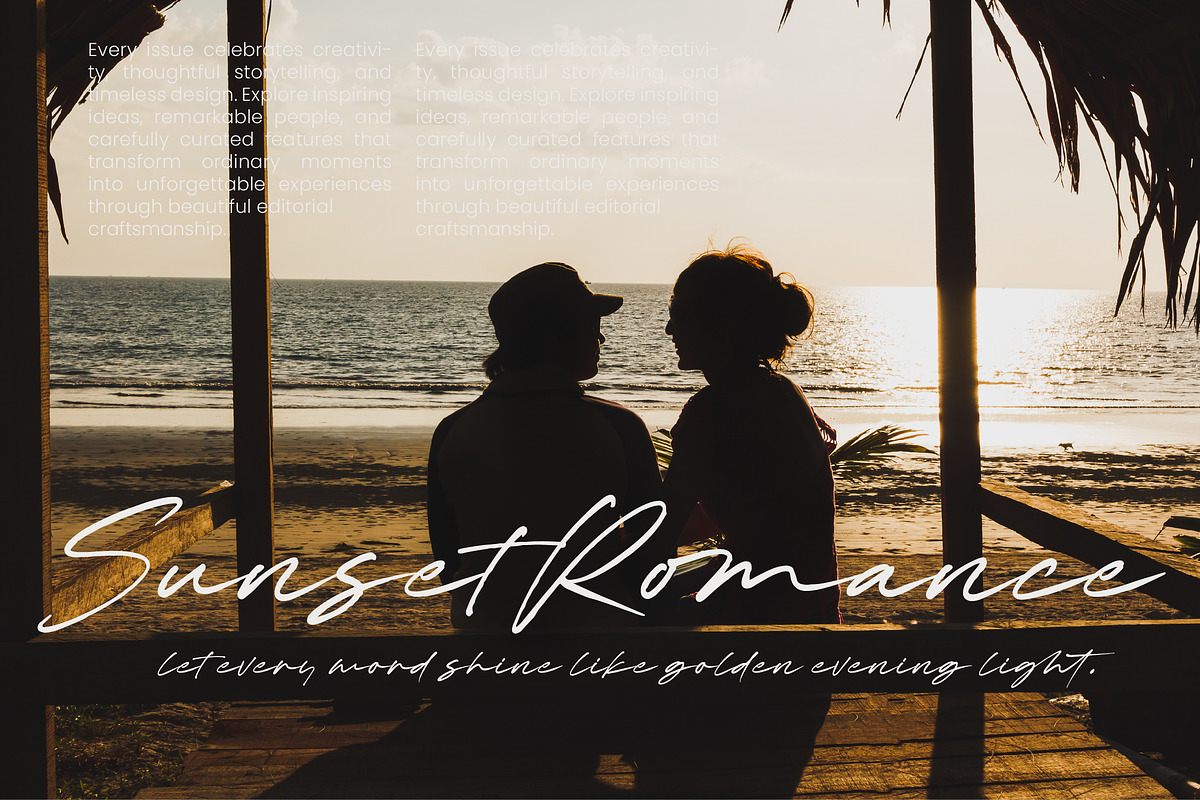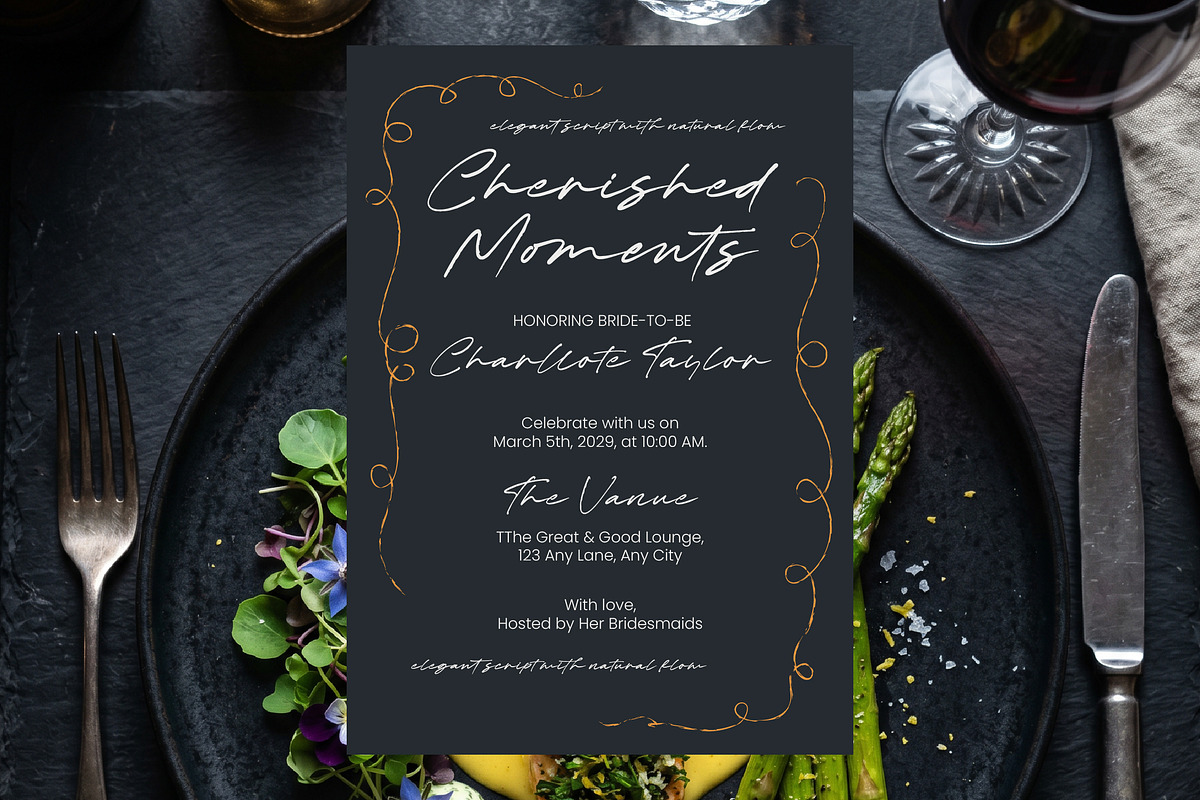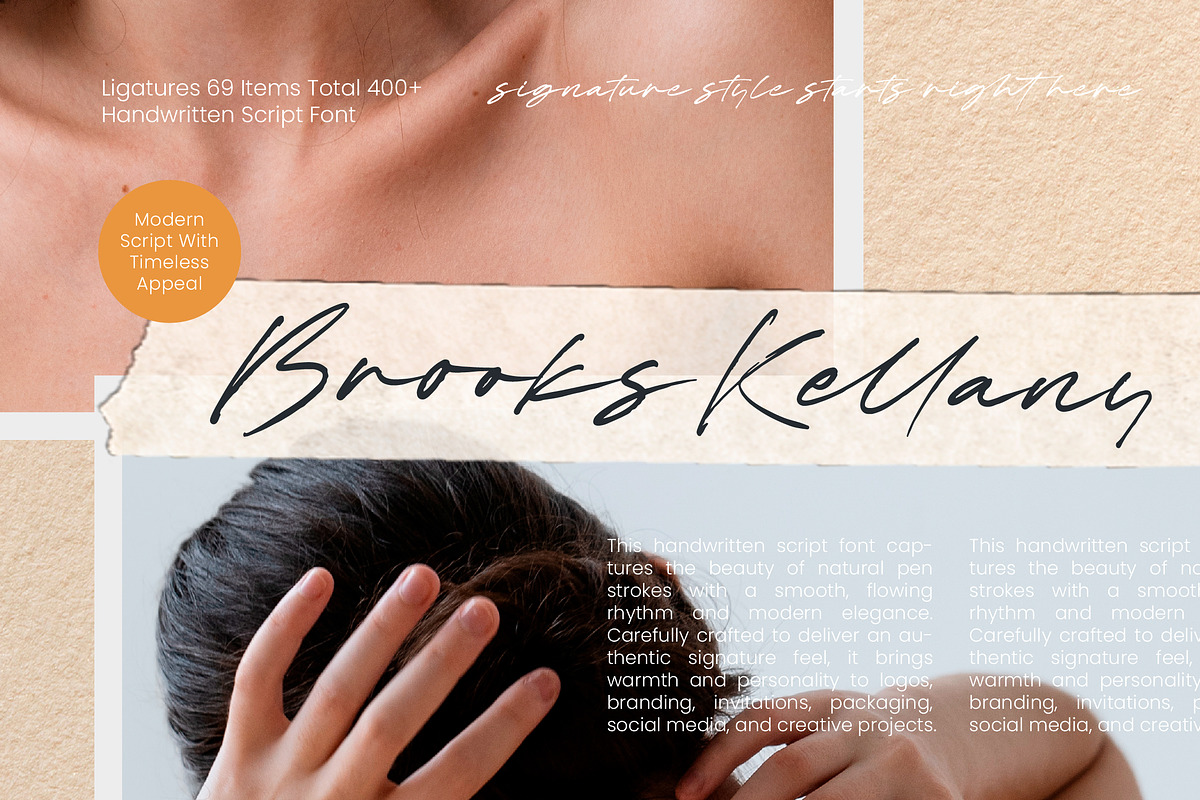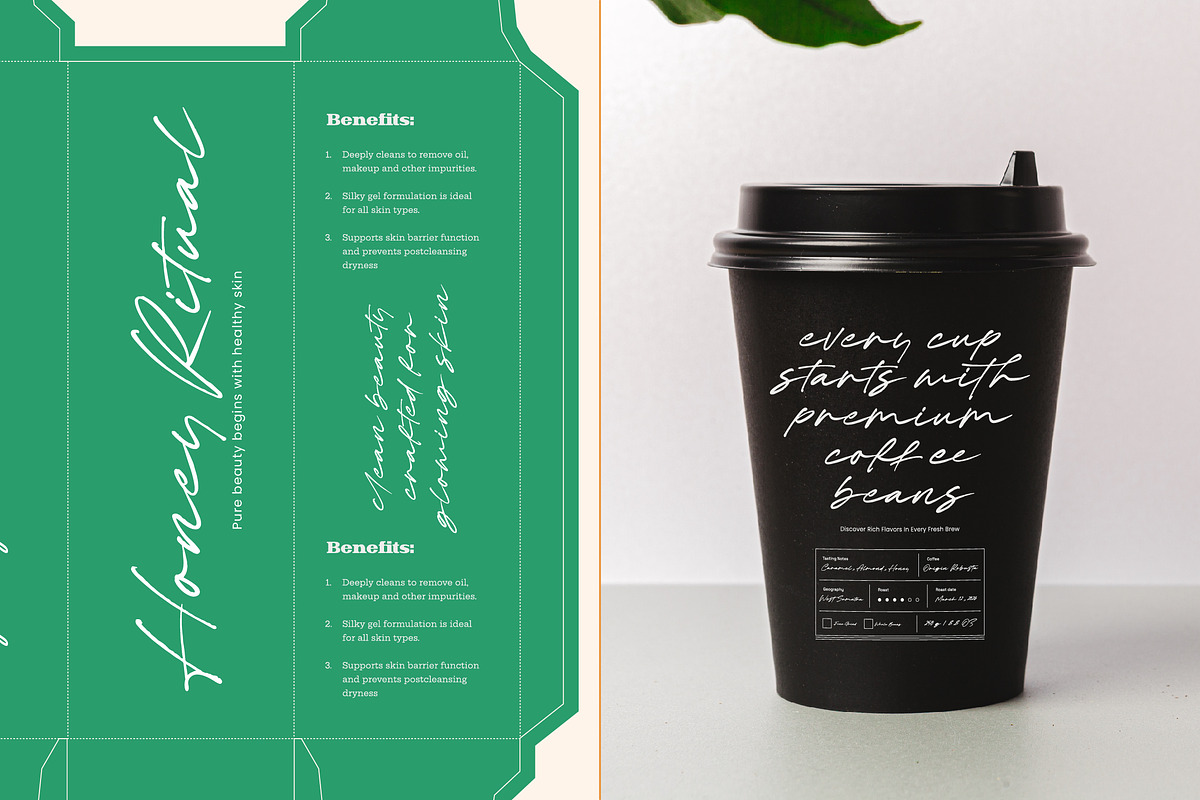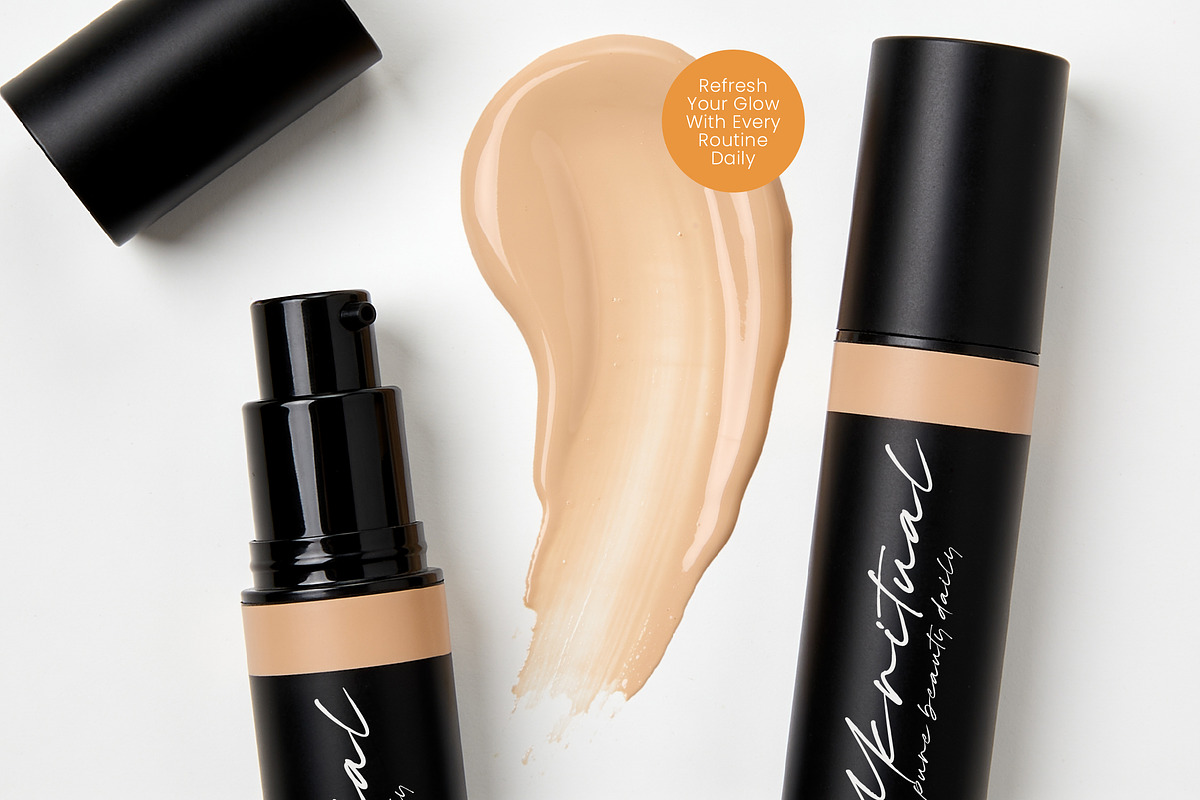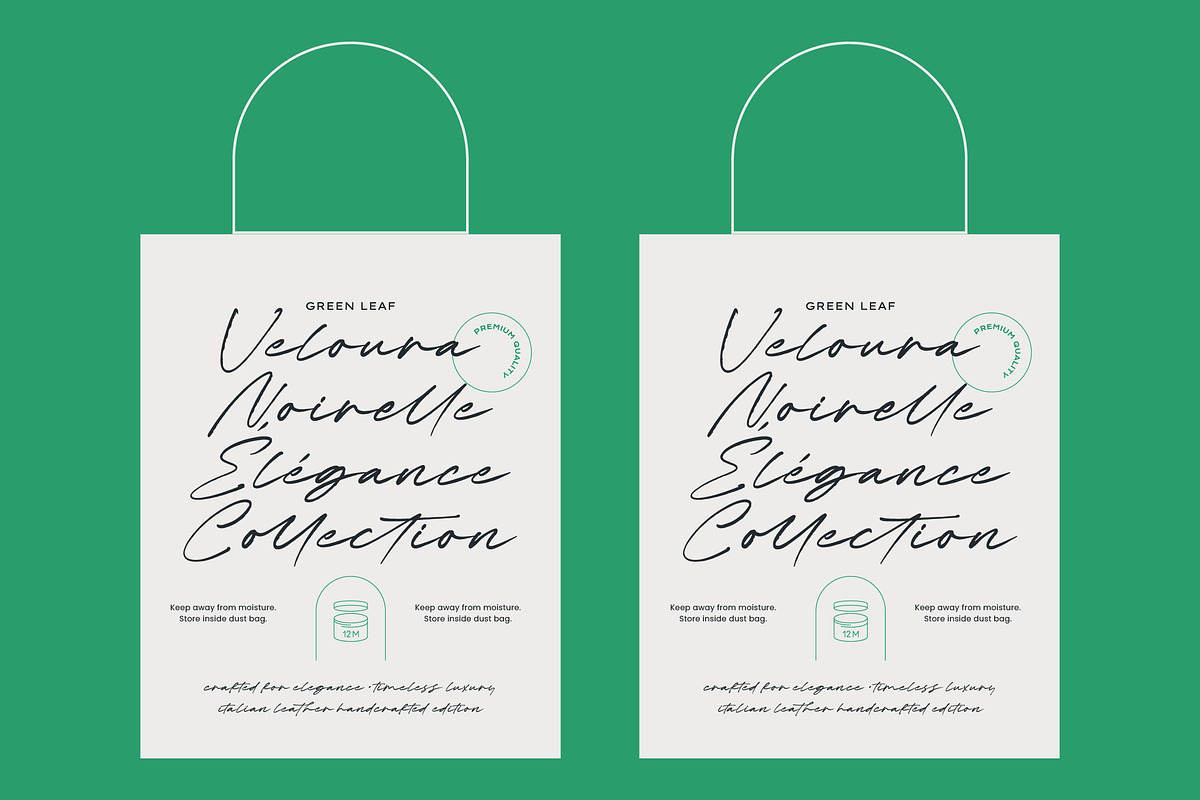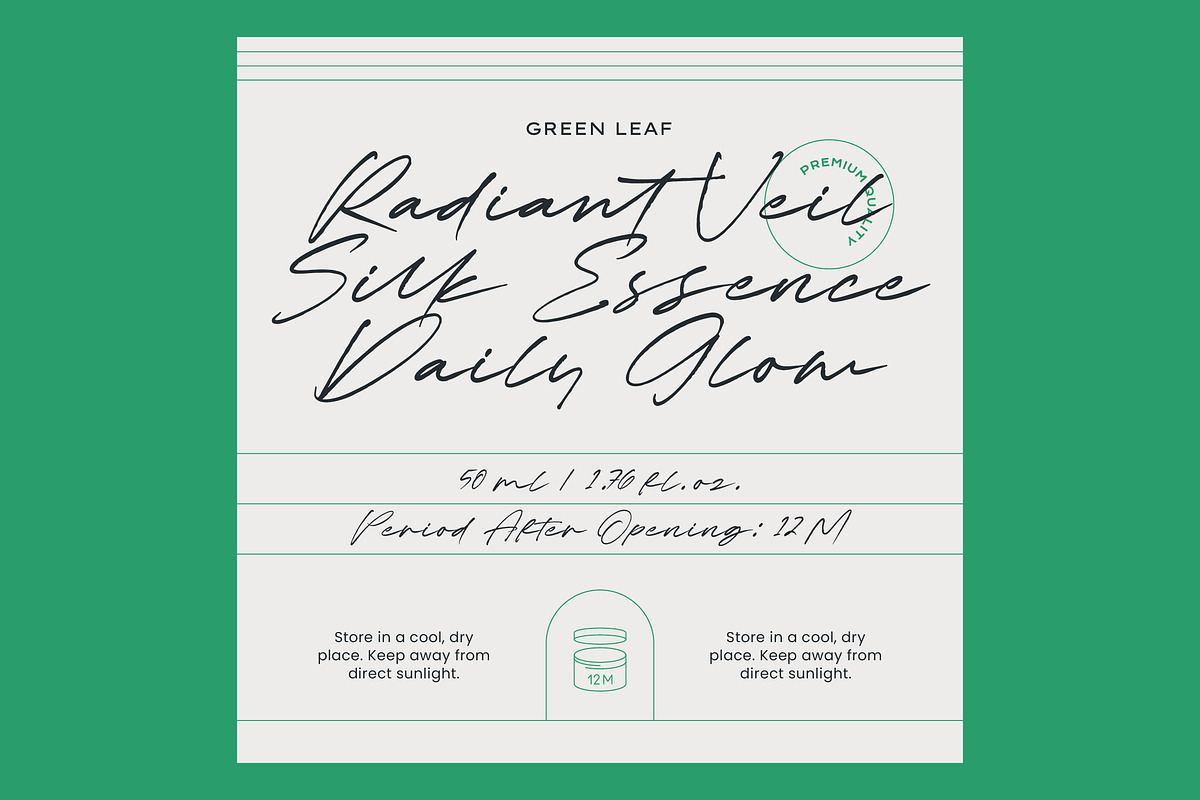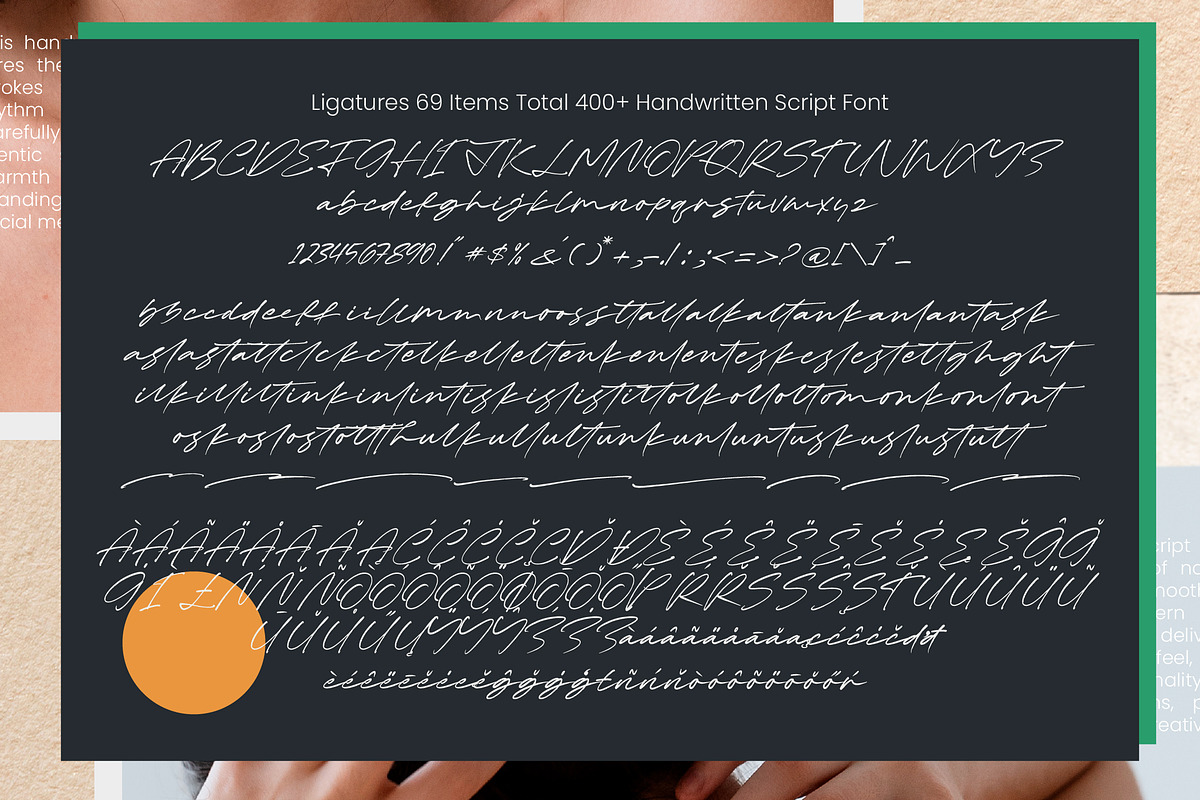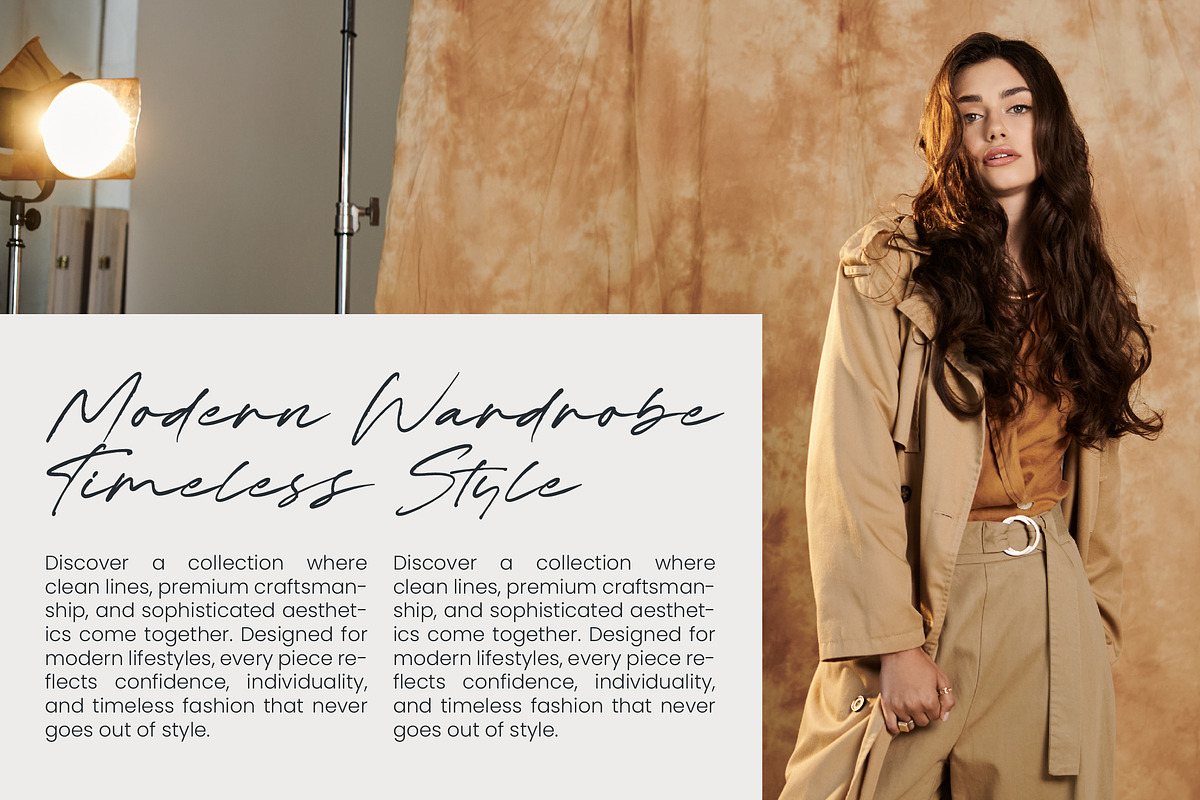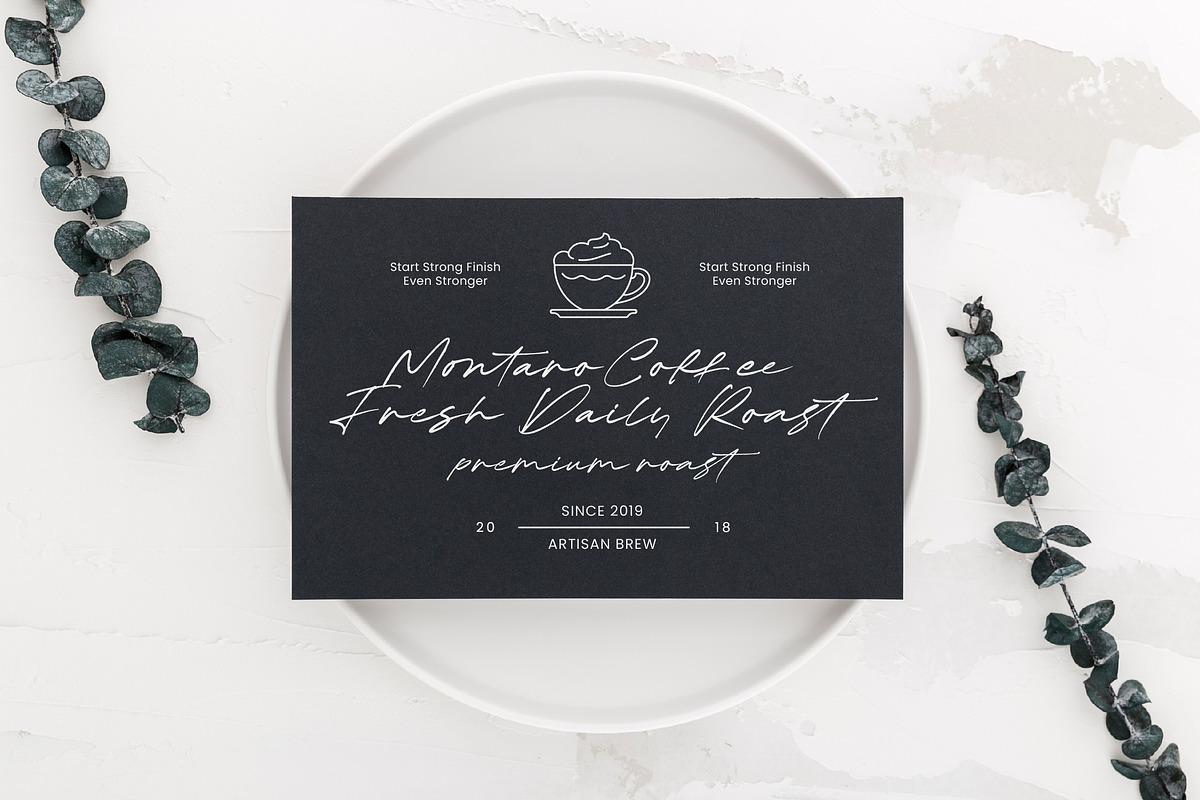
Brooks Kellany Handwritten Script
Brooks Kellany - Handwritten Script Font , Elevate your design identity with the effortless sophistication of Brooks Kellany - Handwritten Script Font. This modern script captures the beauty of natural pen strokes, offering a smooth, flowing rhythm that perfectly mimics high-end calligraphy. Designed with an authentic signature feel, it brings immediate warmth and personality to any layout, making it the ultimate choice for designers seeking a hand-drawn aesthetic with professional refinement.
Reach a worldwide audience without compromising on visual excellence or character. With its extensive multilingual support, Brooks Kellany - Handwritten Script Font adapts seamlessly across global markets, making it incredibly versatile for international projects. Featuring over 400 characters and 69 ligatures, this typeface provides the technical flexibility required to maintain a consistent brand voice across diverse linguistic landscapes.
Transform your creative vision into a tangible luxury experience through strategic typographic choices. Brooks Kellany - Handwritten Script Font is the perfect solution for luxury branding, high-end packaging, and editorial design where elegance is paramount. Its fluid strokes are equally effective for social media graphics and bespoke wedding invitations, ensuring every word resonates with a sense of bespoke craftsmanship and timeless style.
Master the art of visual storytelling by incorporating a typeface that balances human touch with commercial durability. The Brooks Kellany - Handwritten Script Font is more than just a font; it is a premium design tool engineered for creative versatility. By blending timeless appeal with contemporary flair, it empowers brands to stand out in a crowded market, making it a must-have asset for any modern design toolkit